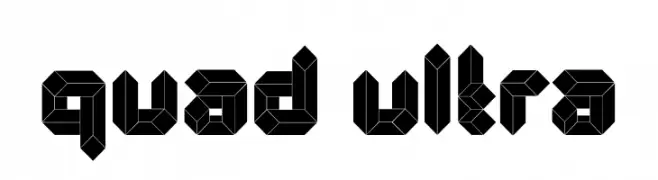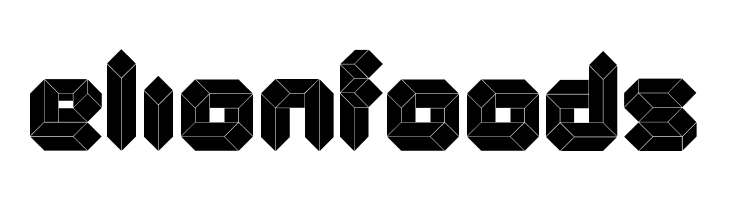
A bold, geometric font with a futuristic and industrial aesthetic.
A geometric, three-dimensional font with a block-like, architectural design.
A bold, geometric font with a 3D effect and modern, decorative style.